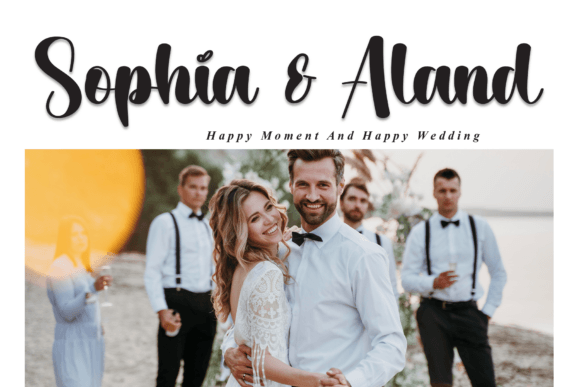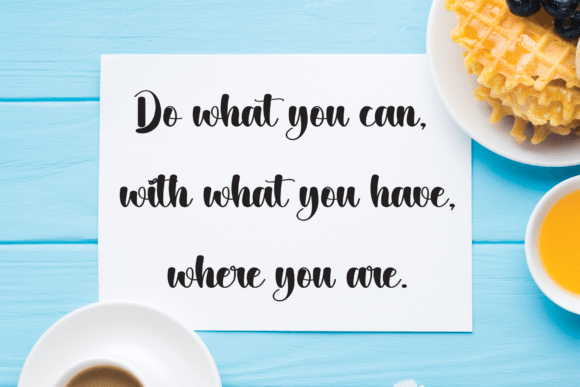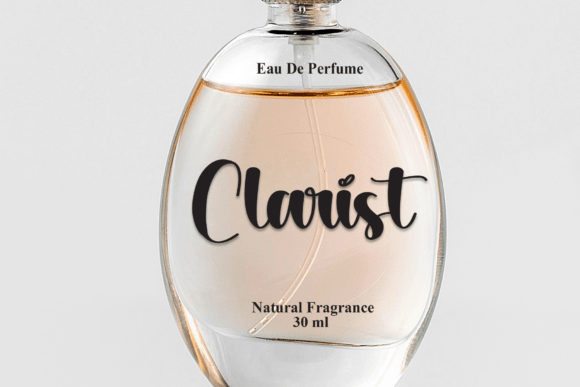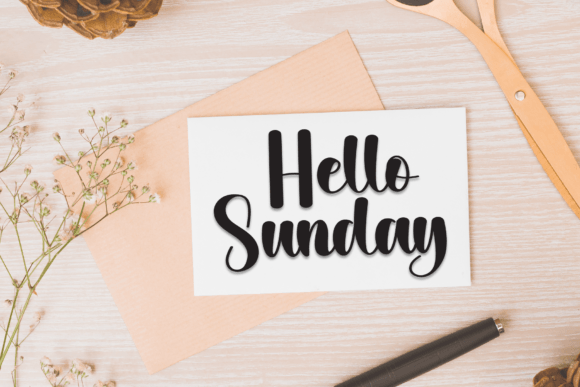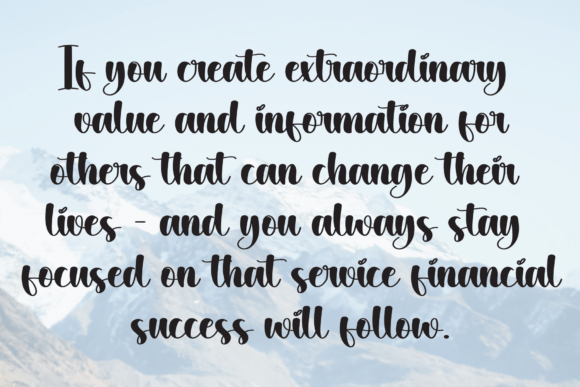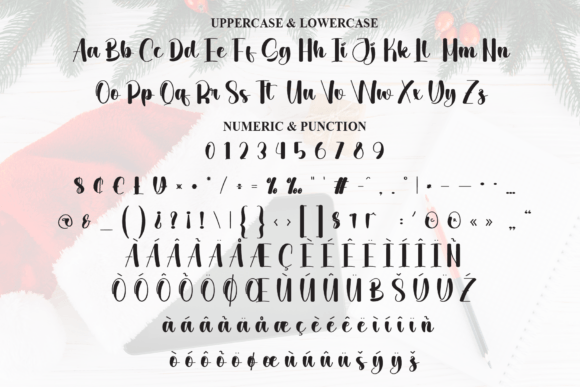
Introduction to Santa Notebook Font
Santa Notebook is a bold handwritten font that looks like it was written with a marker.
The letters are thick and smooth, giving it a fun and casual style, perfect for creating a friendly, personal touch in your designs .
Key Features of Santa Notebook Font